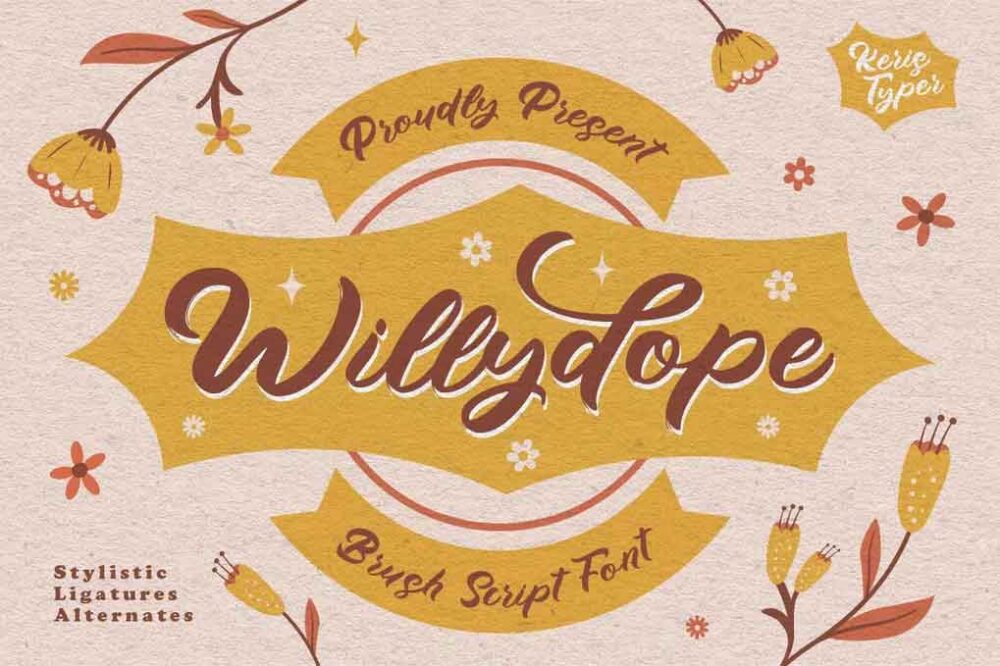
Willydope Font
Introducing a new font from our Script Collection called Willydope. This hand-drawn typeface is made in a digital hand-drawn style in a classy scripted look. This font is good for logo design, Social media, Movie Titles, Books Titles, short text even long text letters, and good for your secondary text font with sans or serif.
• Standard Uppercase & Lowercase
• Numeral & Punctuation
• Multilingual : ä ö ü Ä Ö Ü ß ¿ ¡
• Alternate & Ligature